Chunky display font styles are a collection of bold, large, and eye-catching fonts that can instantly draw attention. From solid and geometric to playful shapes, chunky fonts can convey a strong, striking, friendly, and even playful impression. It’s no surprise that designers often use a chunky display font for headlines, logos, product packaging, and promotional posters to create a more standout design.
The popularity of using the chunky display font is increasing due to its strong impact, particularly for those with retro, modern, and playful themes. With its big and striking look, this font is perfect for the main element of designs, such as poster headings and food packaging.
In this article, you’ll find the best chunky display font recommendations that are going to make your designs more engaging, unique, and professional. Let’s take a look!
Playbowl is a chunky display font featuring bold, smooth, and rounded letterforms that create a warm yet playful impression. The solid letterform with low-contrast characteristics makes it look clean, consistent, and easy to read. This font is suitable for logos, headlines, and packaging because of its ability to make striking, attractive, and characterized designs.
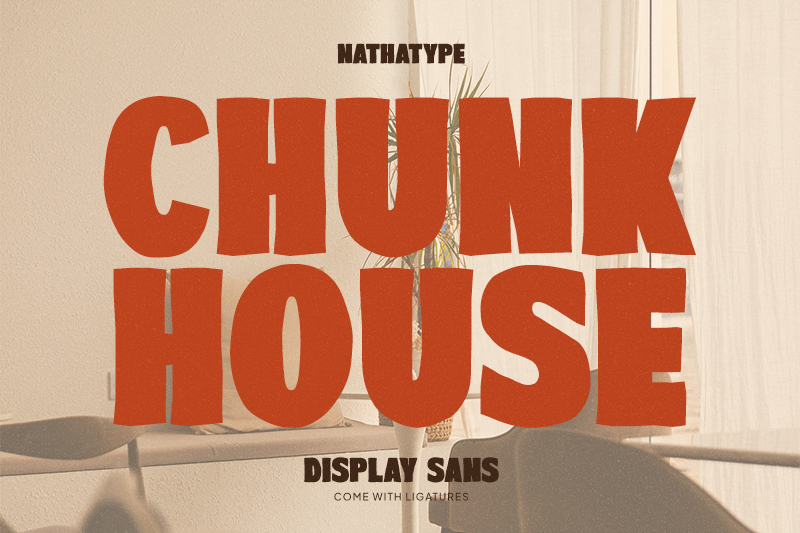
With a strong modern style, Chunk House is a sans serif display font featuring a bold and clean letterform. Its solid, low-contrast letter structure combined with a narrow counter spacing creates a minimalist yet powerful, bold look. In addition, it equips ligatures that make this font perfect for headlines, logos, and branding seeking a modern and professional feel.
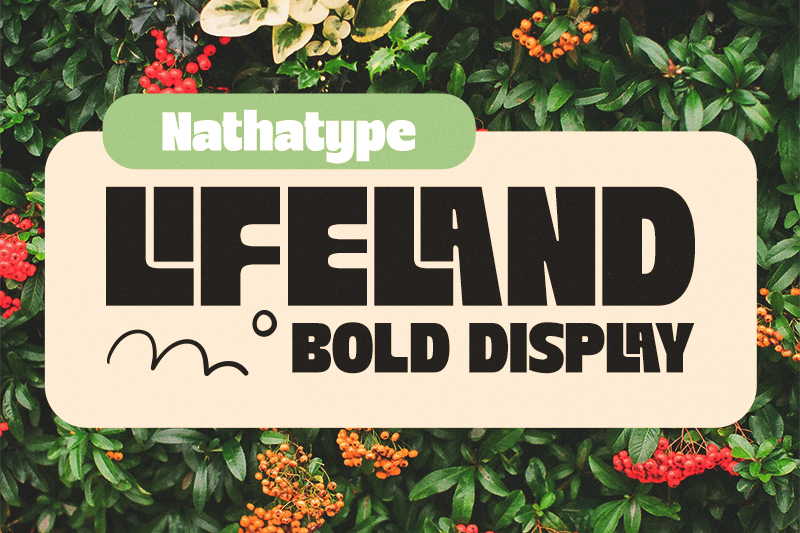
With a bold character, Lifeland is a chunky display font that stands out through its unique and decorative geometric letterforms. Each letterform has a clean cut and dynamic line, creating a strong, modern, and energetic appearance typical of bold display fonts. Additionally, the ligature feature provides a more interesting and flexible variety of letter styles in design. Therefore, this font is ideal for headlines, logos, and branding that want to appear striking and distinctive.
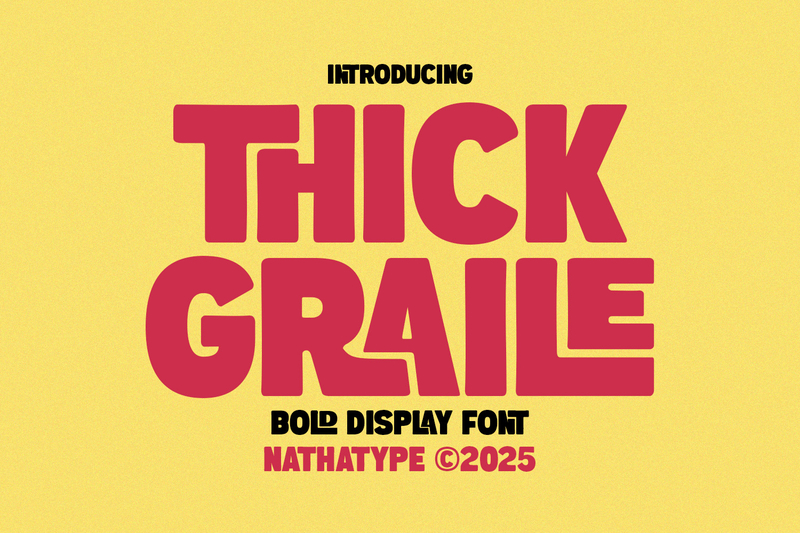
Exuding a strong and confident impression, Thick Graile is a display font with thick, rounded uppercase letters. Its solid characters and smooth outlines create a clean, modern, and visually impactful look. This font is perfect for headlines, logos, and branding seeking a bold and professional look.
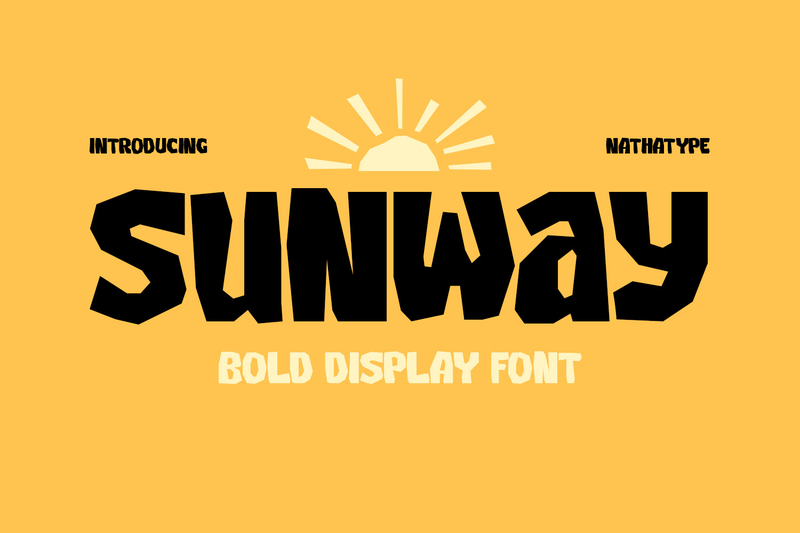
Presenting a distinctive combination of rigid geometric shapes and dynamic, sharp angles, Sunway is a modern and stylish chunky display font with a bold character. Its broken curve structure forms sharp angles, creating a playful and futuristic impression typical of bold display fonts. In addition, the presence of alternates and ligatures provides a more dynamic and interesting visual variation. Therefore, this font is suitable for use in event posters, product branding, food and beverage packaging, social media content, and retro-modern-themed designs.
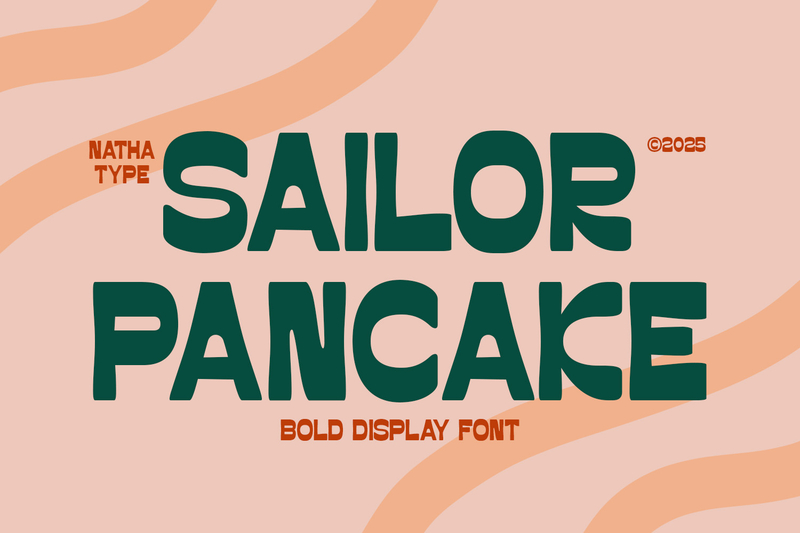
Designed to capture attention, Sailor Pancake evokes a playful yet confident feel. The ligatures in this font add subtle connections between characters, making the typography feel dynamic and natural. The bold letterforms with gentle curves are perfect for poster designs, product branding, food and beverage packaging, and social media content that require a striking and memorable look.
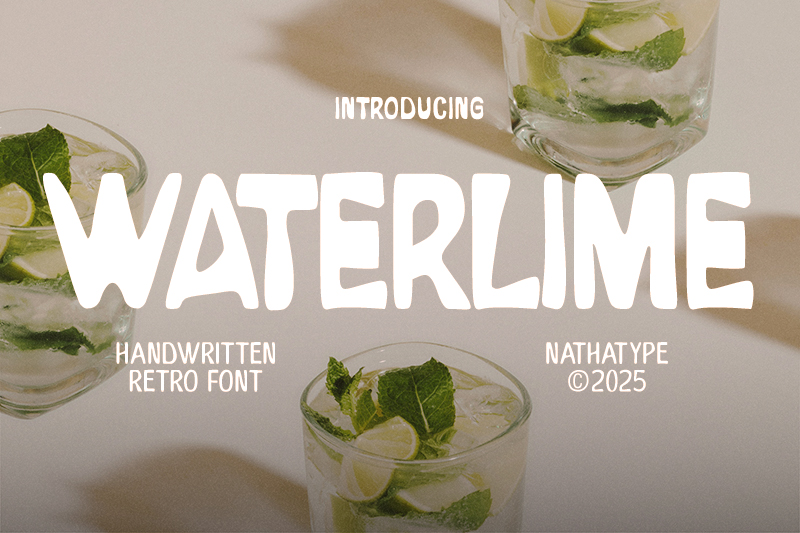
Waterlime is a handwritten font inspired by classic vintage lettering. With a timeless retro style and striking thickness variations, Waterline gives a strong and standout chunky display font look. Each letter has a gentle variation and different contour, resembling natural handwriting letters that give an authentic and personalized feel. In addition, it features contextual alternates for a more dynamic design variation. Therefore, this font is suitable for projects that prioritize originality, texture, and nostalgic feeling.
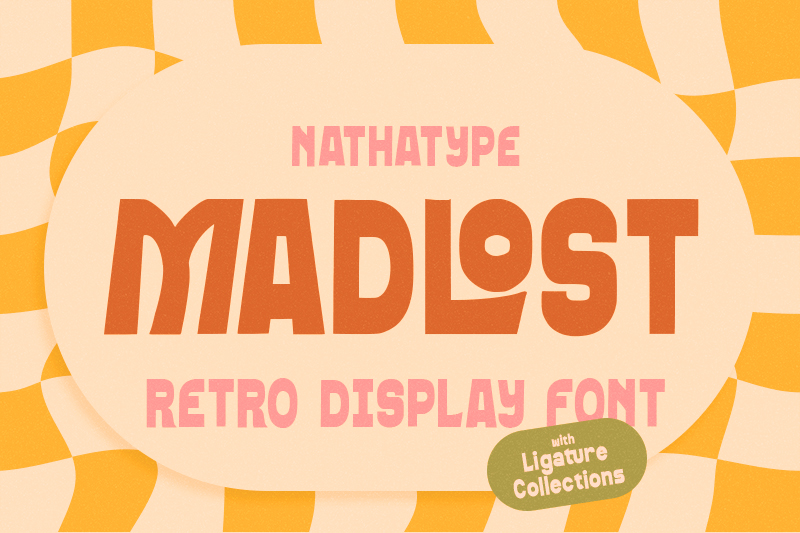
Madlost delivers a strong retro feel with a subtle modern touch. Its extreme, chunky letter thickness gives a classic 70s rhythm to the visual. The ligatures add a unique connection between the letters, enriching the classic feel adapted for today’s design needs. Madlost is perfect for designs that seek to convey a nostalgic feel with a modern flair, such as event posters, product branding, packaging, and promotional materials.
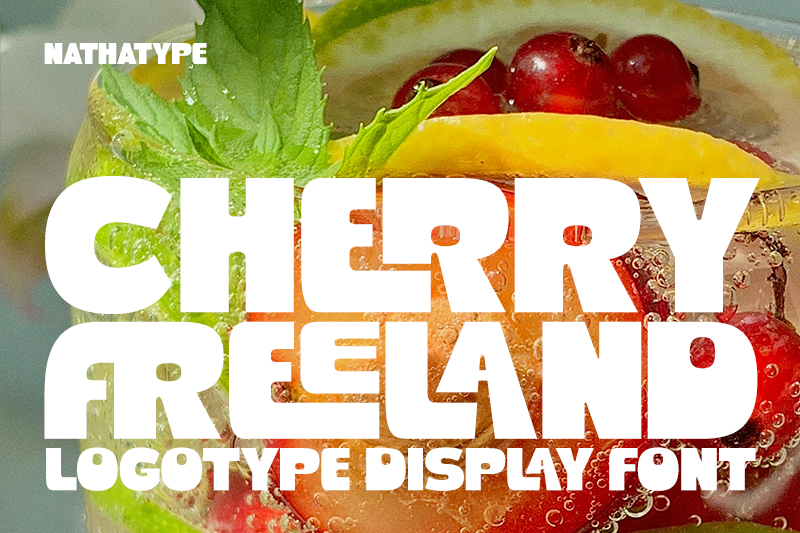
Starting with a bold and fresh impression, Cherry Freeland appears as a chunky display font that immediately steals attention in various design needs. This font combines playful characters with strong, bold shapes, making it suitable for branding such as fresh drinks, snacks & desserts, and events that require a bright and energetic appearance. With additional features such as alternates and ligatures, Cherry Freeland provides high flexibility to create a unique, attractive, and memorable visual.